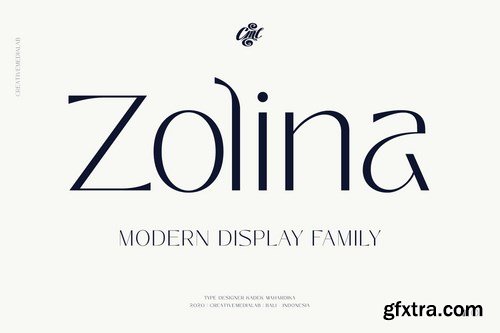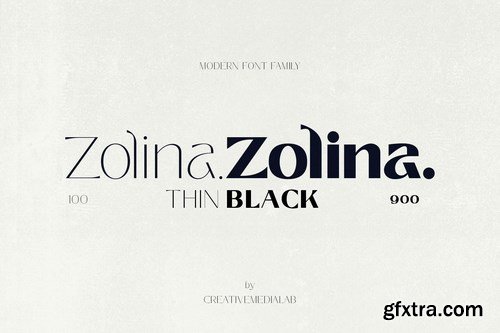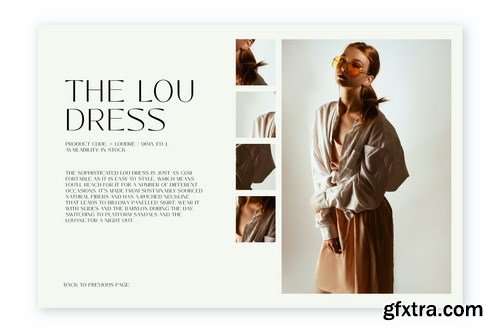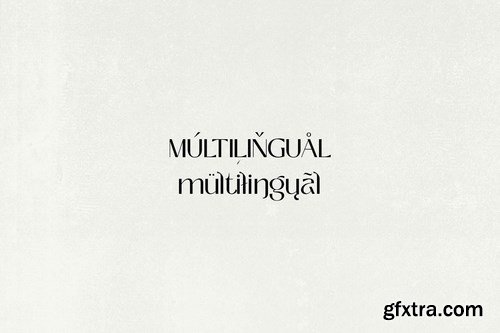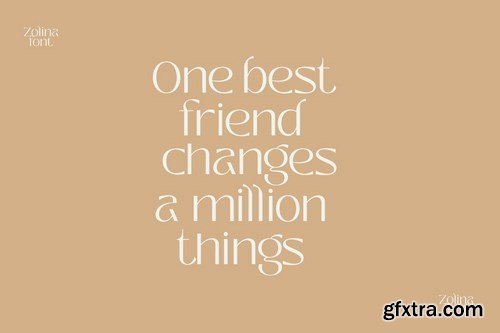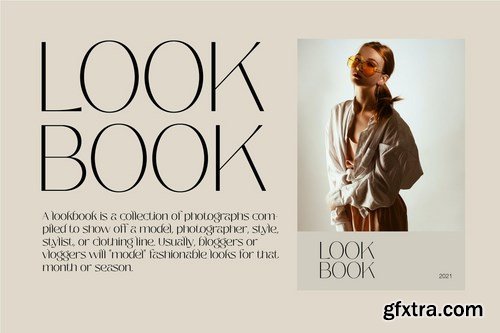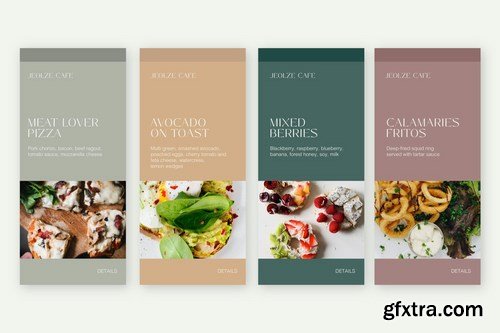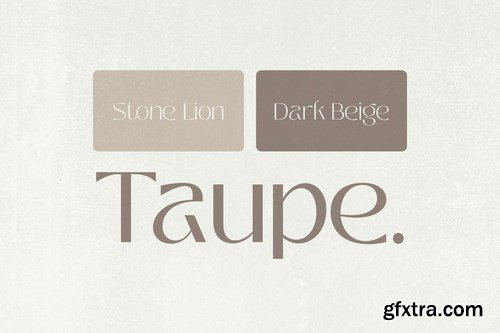
Unique and fashionable font, the straight lines combined with a slight curve that makes Zolina looks modern and pretty. Try uppercase for clean and elegant look. Zolina is perfect for website header, logo, instagram story, or fashion related branding. This versatile family consists of 9 weights, variable styles as well as multilingual support, numbers, and currency symbols.